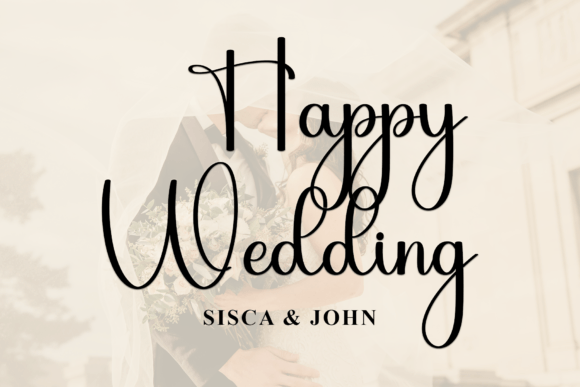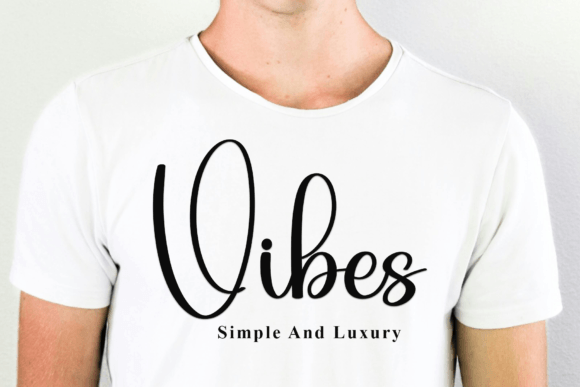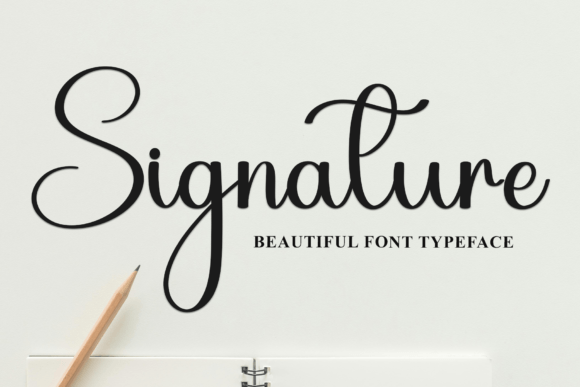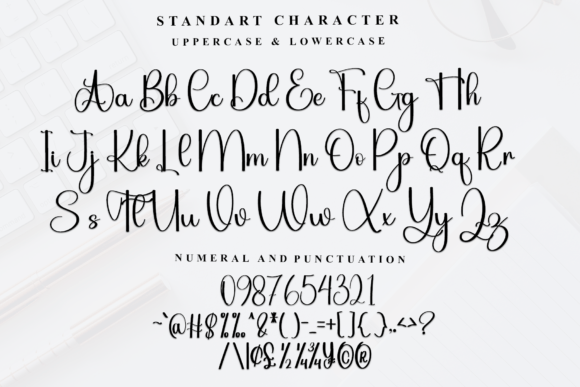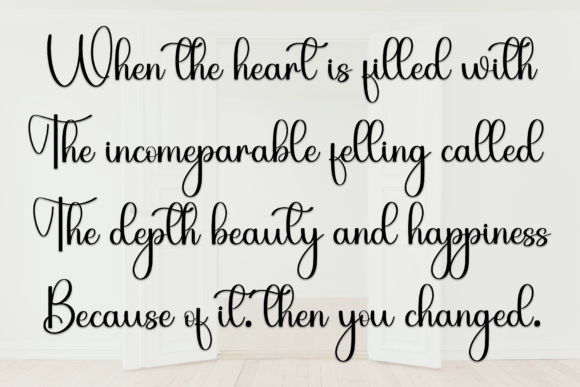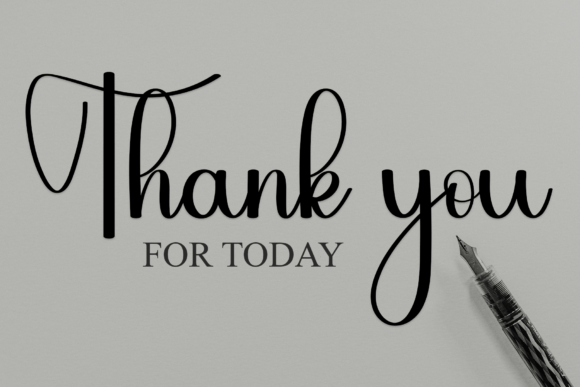
Introducing Black Chocolate Font: Elevate Your Designs with Elegance and Timelessness
Are you a designer or crafter looking for a font that exudes sophistication and refinement? Look no further than the Black Chocolate font. This delicate, elegant, and timeless font is sure to elevate your designs and bring a touch of luxury to your creative projects. In this article, we’ll explore the features and benefits of the Black Chocolate font, and show you how it can be used to take your designs to the next level.
A Font that Matches a Wide Pool of Designs
One of the standout features of the Black Chocolate font is its versatility. Its beautiful and well-balanced characters make it an excellent match for a wide range of designs, from elegant wedding invitations and sophisticated business cards to stylish packaging and refined branding. Whether you’re working on a modern and minimalist project or a more traditional and ornate design, the Black Chocolate font is sure to complement your style.
The font’s classic and timeless aesthetic ensures that it won’t go out of style anytime soon, making it a great investment for designers and crafters who want to create designs that will stand the test of time. Additionally, the Black Chocolate font is highly legible, even at small sizes, making it perfect for use in body text, headings, and titles.
PUA Coded for Easy Access to Glyphs and Ligatures
The Black Chocolate font is PUA (Private Use Area) coded, which means that you can easily access all the amazing glyphs and ligatures included in the font. This feature makes it simple to add an extra layer of creativity and sophistication to your designs. With the Black Chocolate font, you can effortlessly create beautiful and intricate designs that showcase your skills and attention to detail.
PUA coding also allows you to use the font’s glyphs and ligatures in a variety of applications, including Adobe Illustrator, Photoshop, and Canva. This means that you can use the Black Chocolate font in a range of design projects, from digital graphics and social media assets to print materials and signage.
How to Use Black Chocolate Font in Your Designs
So, how can you use the Black Chocolate font in your designs? Here are a few ideas to get you started:
- Wedding Invitations: Use the Black Chocolate font to create beautiful and elegant wedding invitations that set the tone for a sophisticated and refined wedding celebration.
- Branding and Packaging: Add a touch of luxury to your branding and packaging with the Black Chocolate font. Use it to create eye-catching labels, business cards, and letterheads that showcase your brand’s personality and style.
- Digital Graphics: Use the Black Chocolate font to create stunning digital graphics, such as social media assets, blog headers, and email newsletters that grab attention and leave a lasting impression.
- Signage and Displays: Create eye-catching signage and displays with the Black Chocolate font. Use it to create menu boards, price tags, and promotional displays that showcase your products and services in a sophisticated and elegant way.
Why Choose Black Chocolate Font?
So, why should you choose the Black Chocolate font for your design projects? Here are just a few reasons:
- Elegant and Timeless: The Black Chocolate font exudes elegance and sophistication, making it perfect for designs that require a touch of luxury and refinement.
- Versatile: The font’s classic aesthetic ensures that it will match a wide range of designs, from modern and minimalist to traditional and ornate.
- PUA Coded: The font’s PUA coding makes it easy to access all the amazing glyphs and ligatures included, adding an extra layer of creativity and sophistication to your designs.
- Highly Legible: The Black Chocolate font is highly legible, even at small sizes, making it perfect for use in body text, headings, and titles.
In conclusion, the Black Chocolate font is a delicate, elegant, and timeless font that is sure to elevate your designs and bring a touch of luxury to your creative projects. With its beautiful and well-balanced characters, PUA coding, and high legibility, it’s the perfect choice for designers and crafters who want to create sophisticated and refined designs that stand out from the crowd.